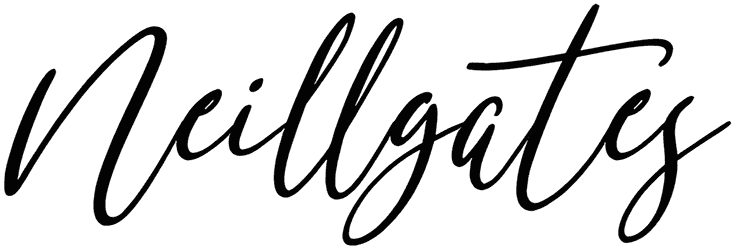
Neillgates Font
We like to show you Neillgates, an authentic calligraphy font featuring a fresh, modern vibe made via natural, flowing marks. It also looks lavish and pricey, which seems written quickly by a pro, standing out from any design in a wink.
Numerals plus most punctuation are not supported, and the legibility isn’t very clear. This creative font is well-suited for photo overlays, branding, posters, signature-style logos, and product packaging.